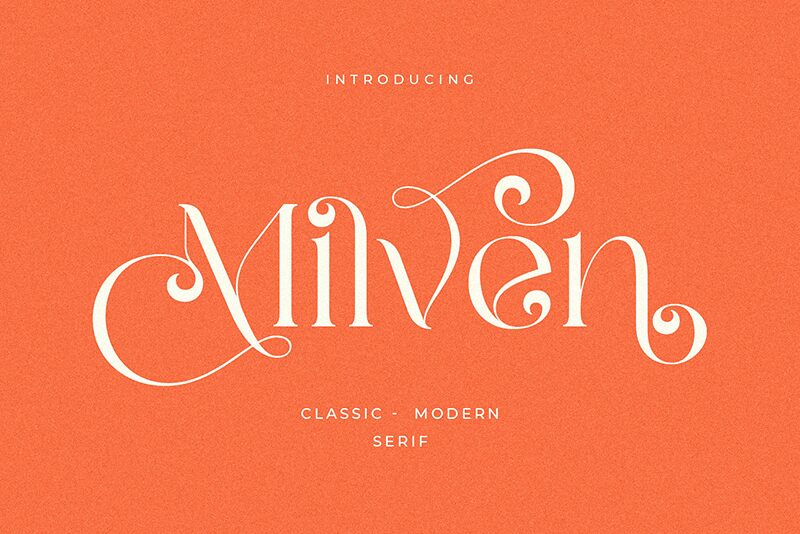
Milven Regular
Milven font by BrandSemut is a display typeface that features distinctive serifs, elegant curves, and ornamental details. Milven has a sophisticated appearance with a decorative flair at the start and end of its letters. Its elegance doesn’t affect the balance that makes it suitable for usage within paragraphs.
Use this free display font in posters, book covers, album covers, invitations cards, magazines, or brochures. Websites centered around culture can also benefit from this font whenever they incorporate it into their projects.